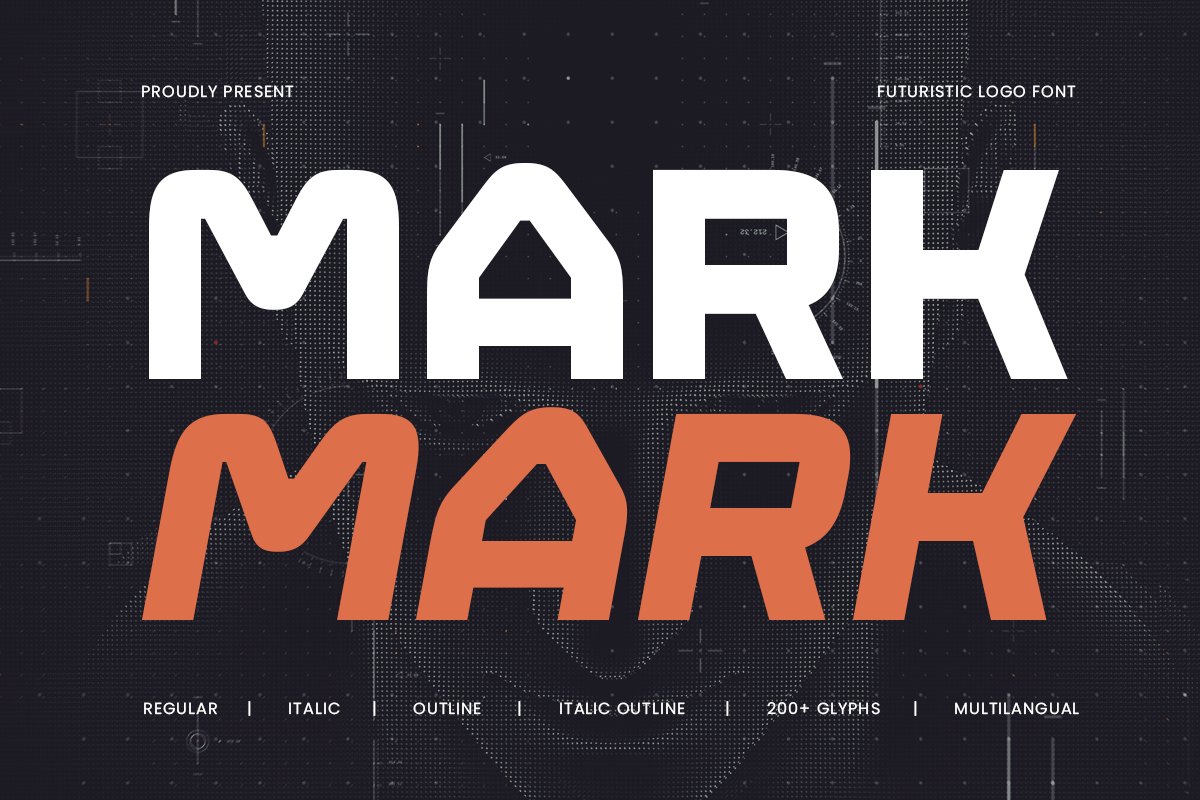
MARK
-Futuristic Logo Font
MARK - Futuristic Logo Font
MARK is a bold futuristic logo font designed for high-tech branding, digital innovation, and sci-fi-inspired visuals. With its sleek, geometric structure and cyber aesthetics, this font is ideal for technology brands, esports teams, digital products, gaming logos, and space-themed designs.
Featuring sharp angles and dynamic letterforms, MARK font delivers a cutting-edge, modern look that is both powerful and highly readable. Whether you're designing a futuristic brand identity, a gaming interface, or an AI-powered startup logo, this font provides the perfect blend of minimalism and innovation.
Step into the future of typography with MARK font, a font that brings bold precision and modern design to your creative projects.
MARK - Futuristic Logo Font Features:
• Sleek, futuristic, and modern letterforms
• Ready with 4 Styles: Regular, Italic, Outline, Outline Itlaic
• Perfect for tech, esports, and sci-fi branding
• Punctuation, numbers, and symbols included
• Uppercase and lowercase letters
• OpenType features for enhanced customization
Unleash bold innovation and futuristic style with MARK font—the ultimate tech-driven font for modern branding.